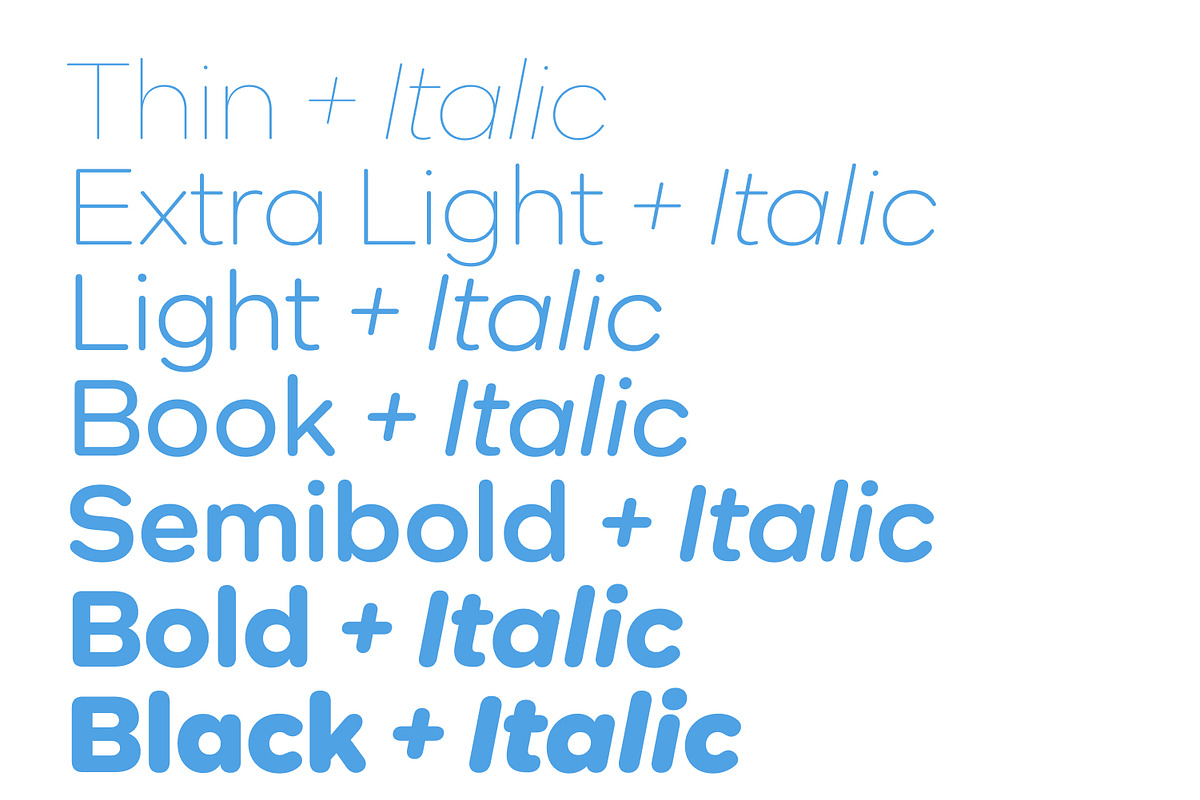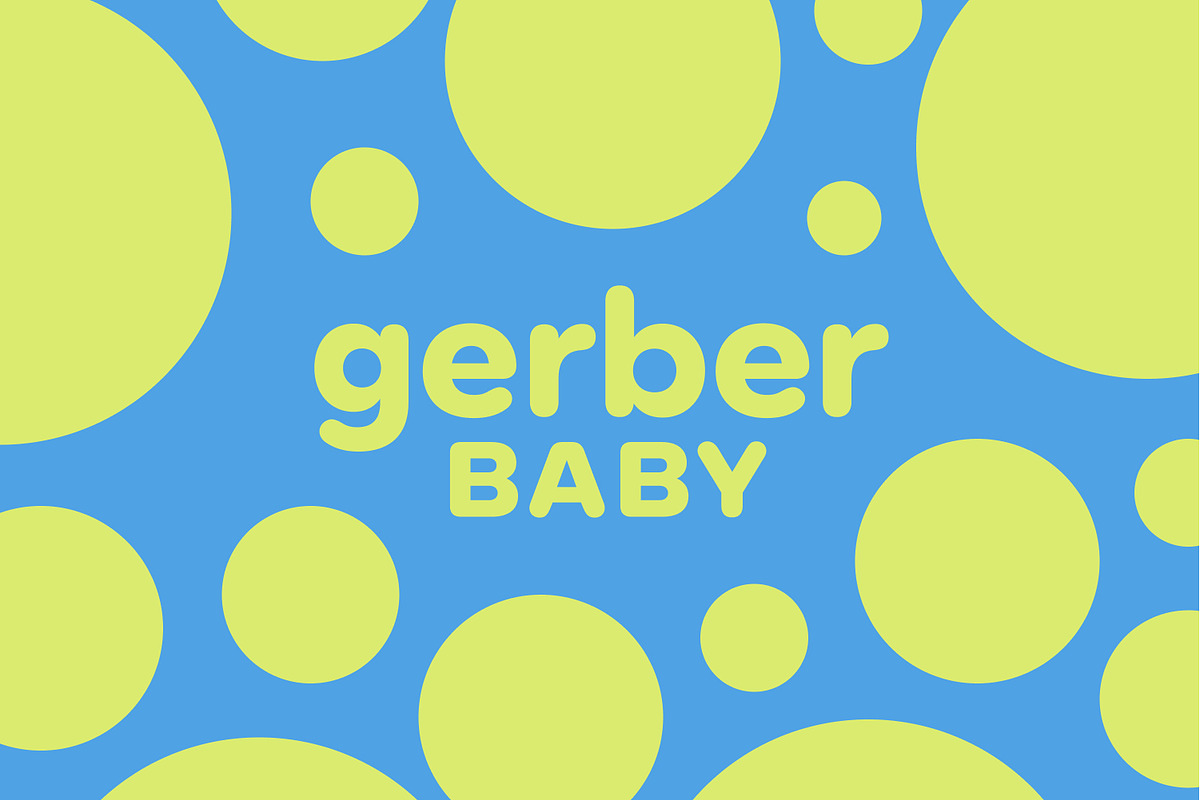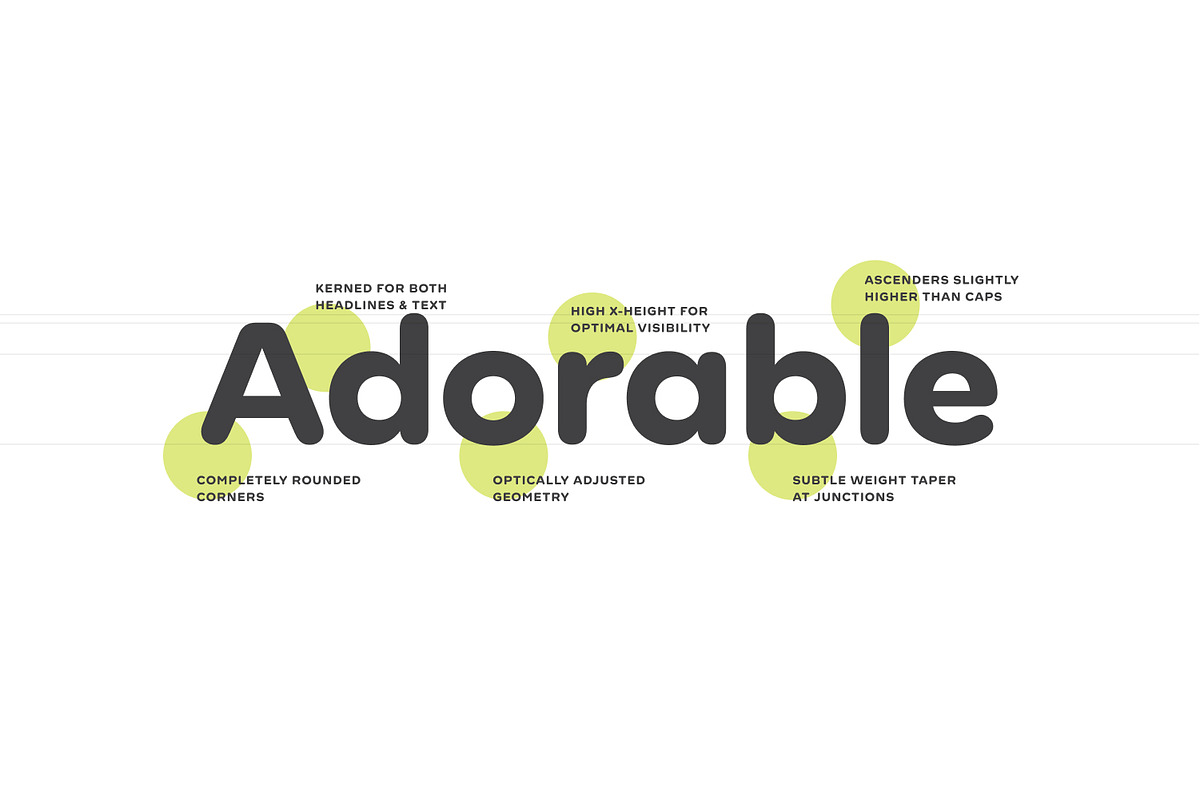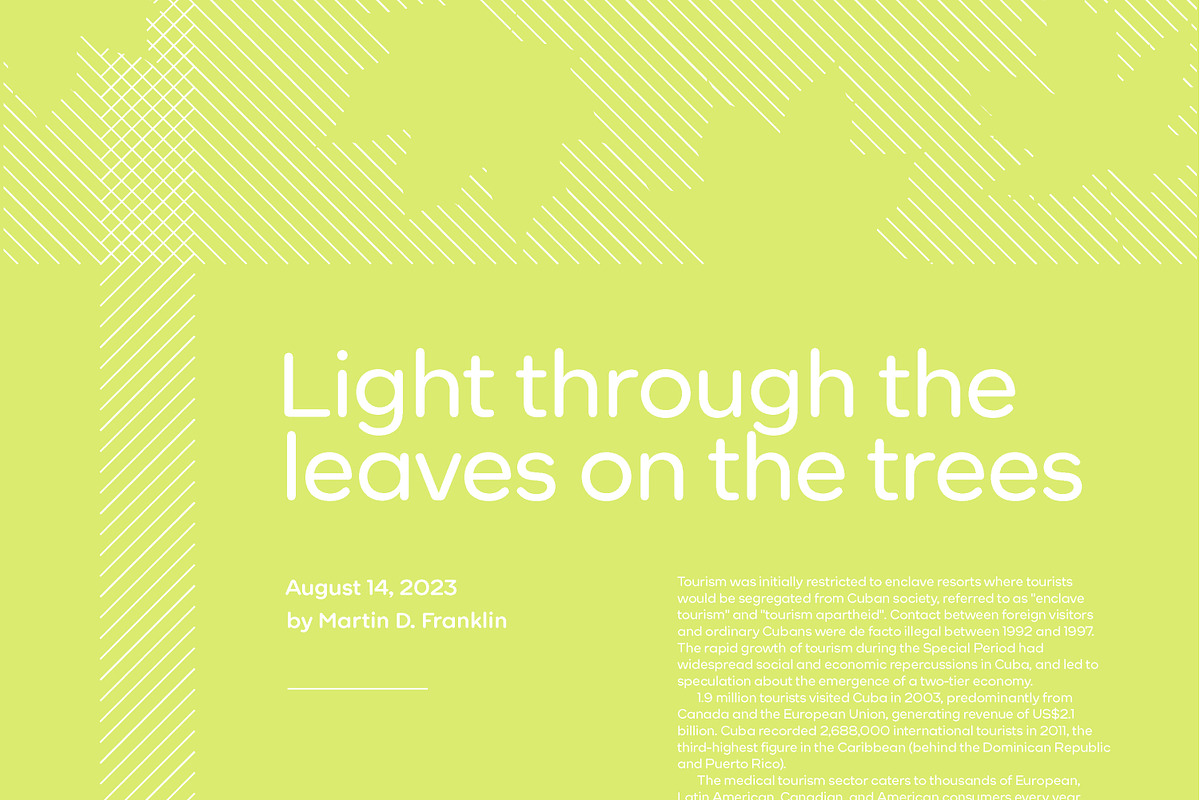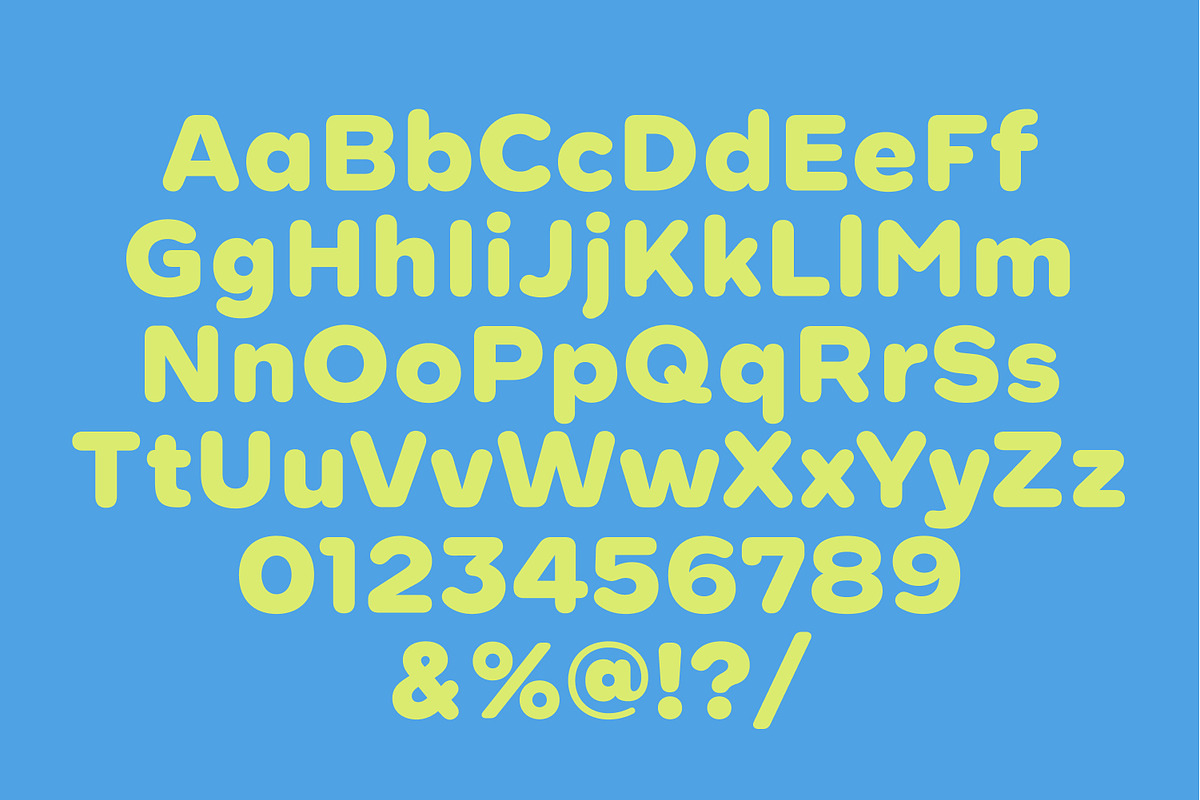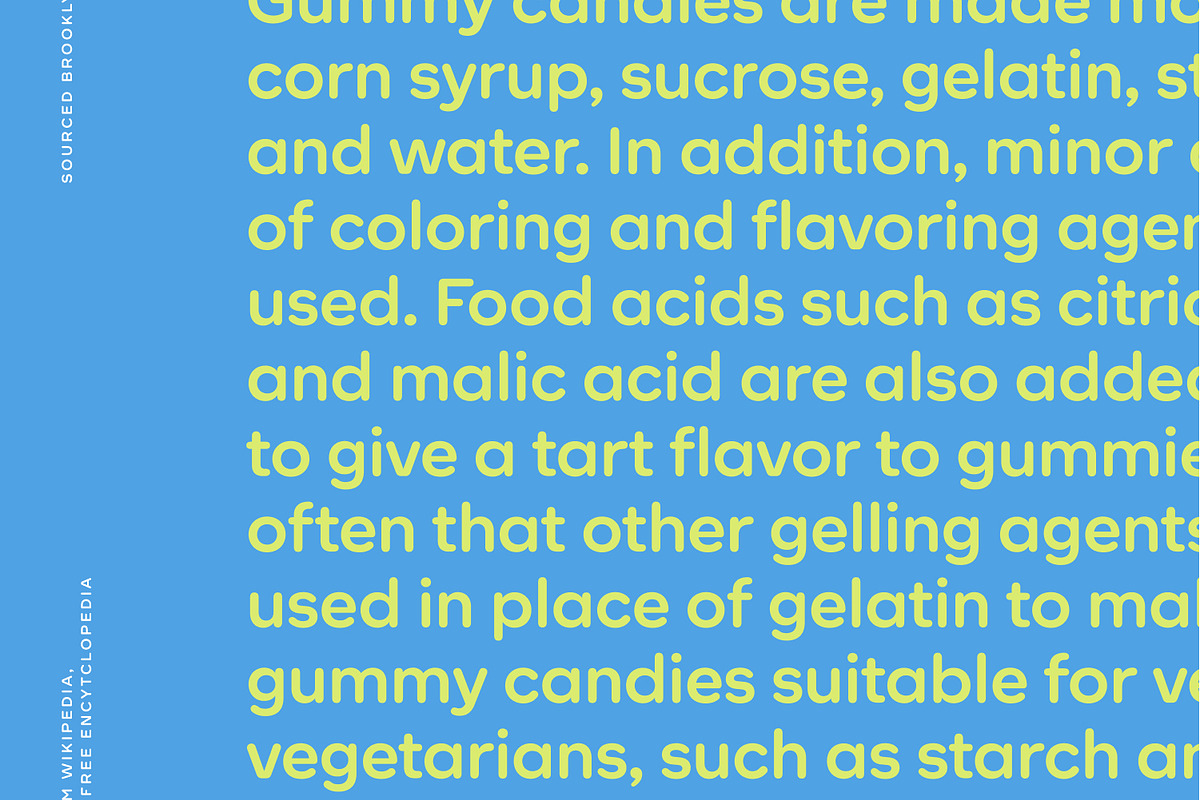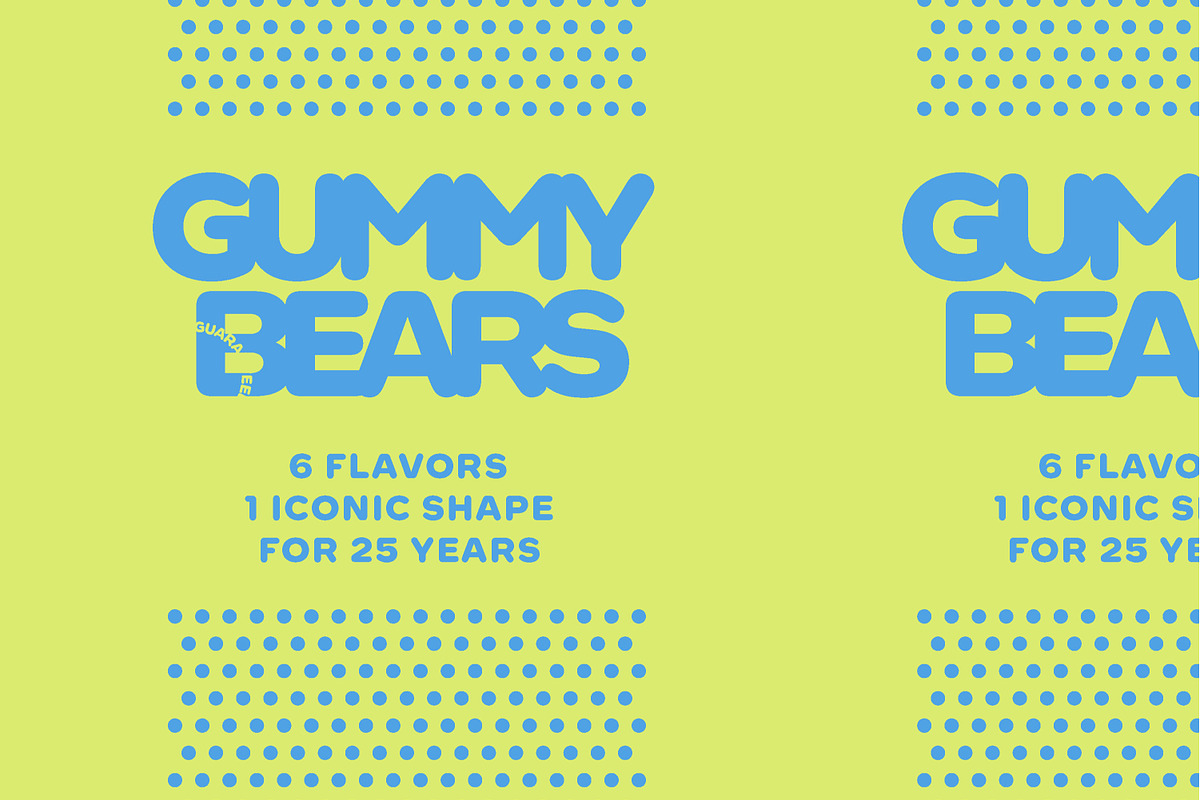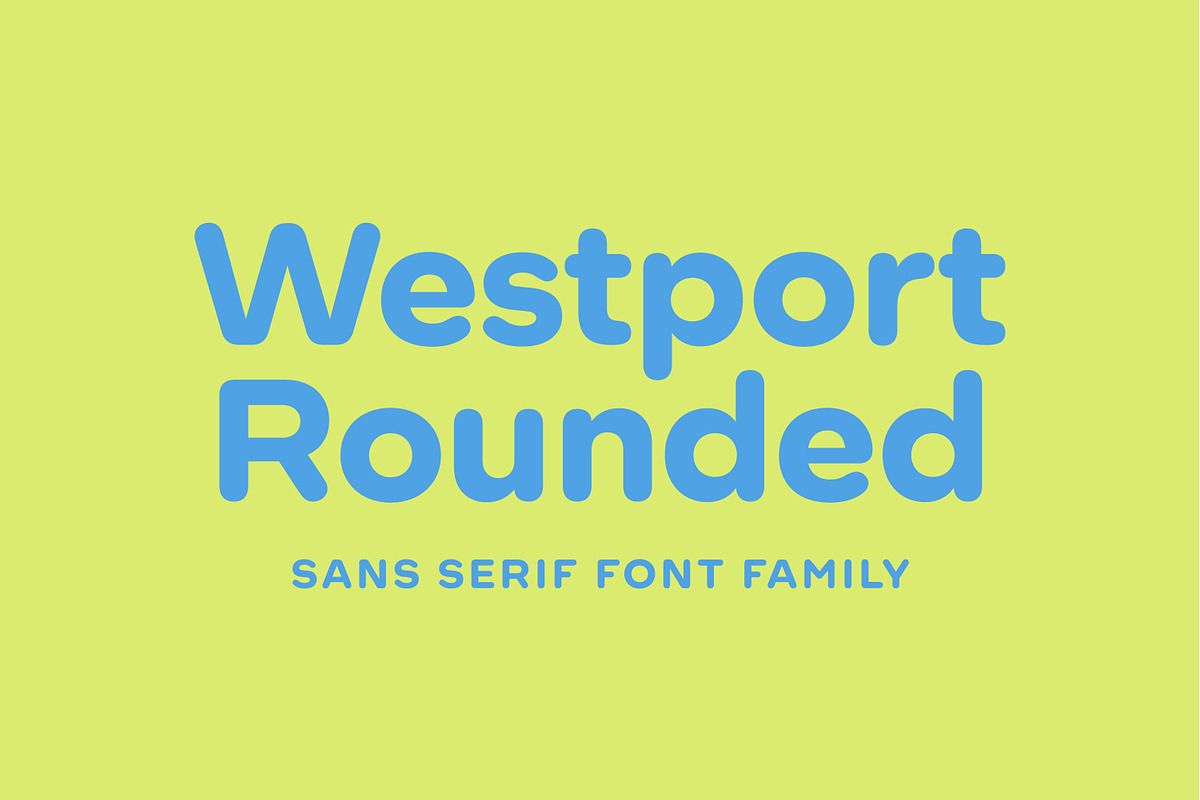
Westport Rounded — Geometric Sans
The heavier weights are downright cuddly, and the lighter weights are classy and amicable. The classic geometric forms allow Westport Rounded to excel in both headlines and text settings and the robust set of weights and italics will have you using it on a regular basis. -7 weights + italics -Robust language support